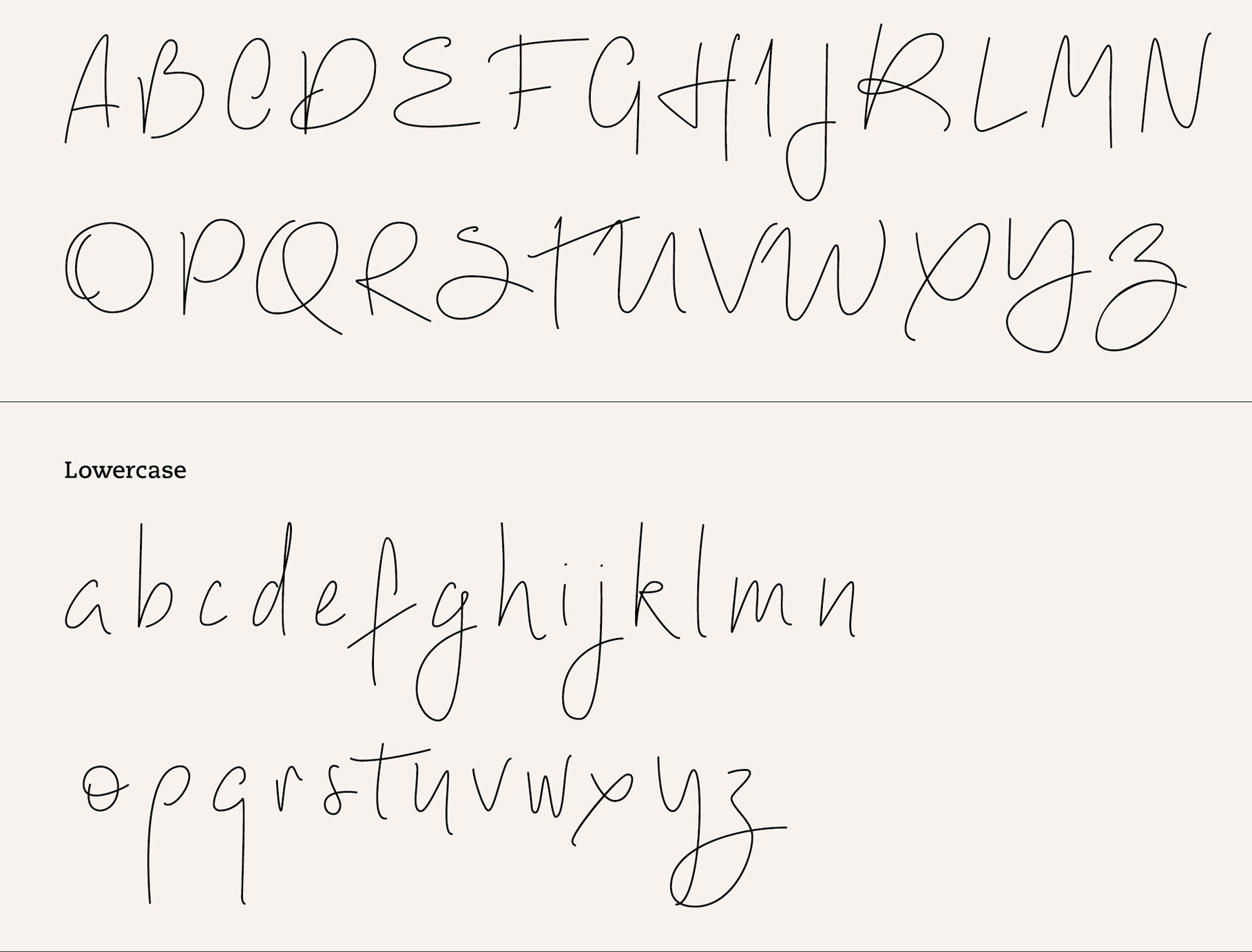
Judith Gillet
Lyon, France-based creator of the modular octagonal blackletter typeface Enigma (2014), the script typeface Je (2014) and the art deco typeface Ballroom (2014). Enigma can be bought at Ten Dollar Fonts.
Typefaces from 2019: Villa Douce (art deco), Novelist (script).